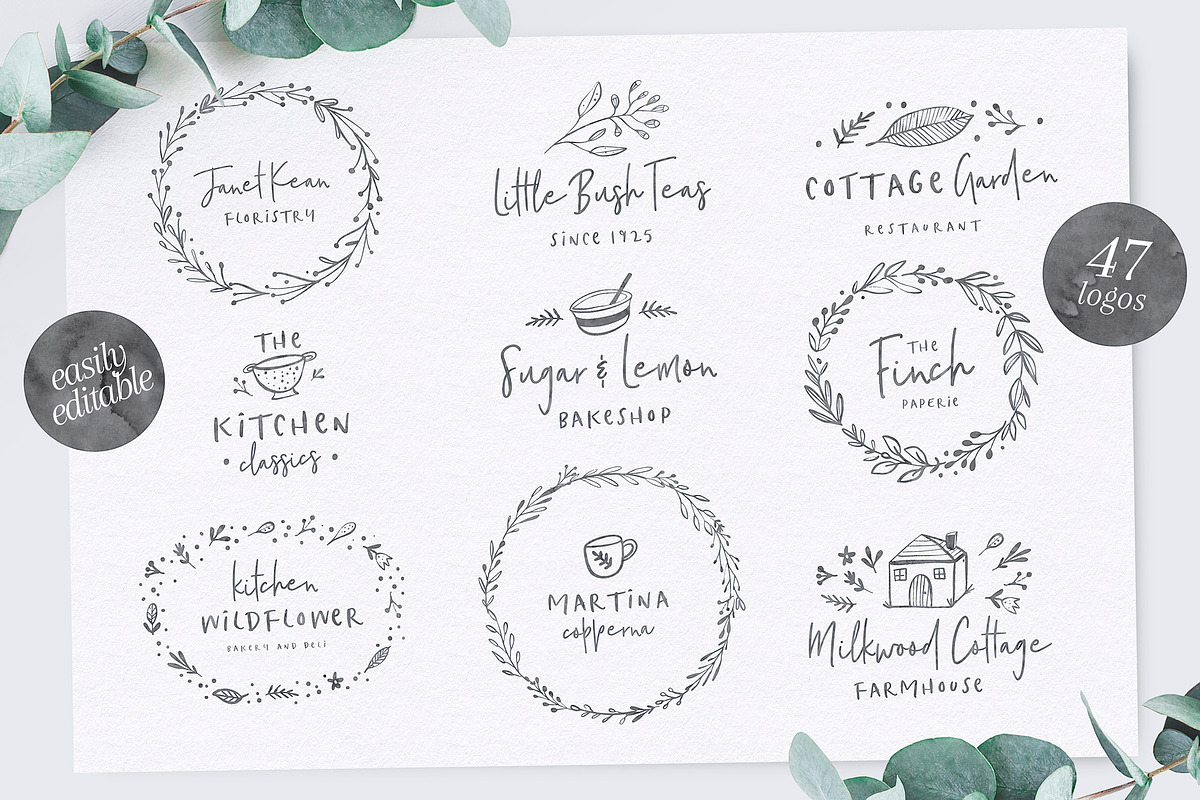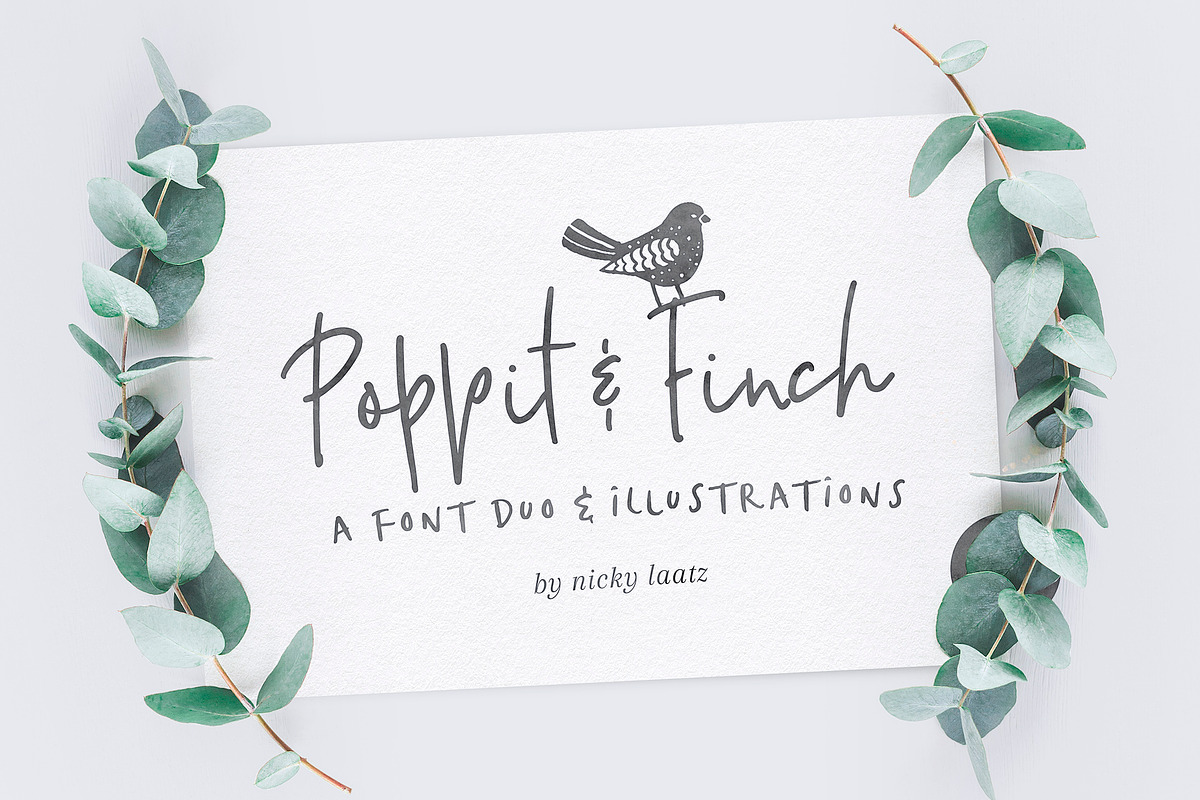
Poppit & Finch Fonts & Illustrations
Having just moved to the beautiful Cornish countryside, surrounded by green rolling hills, adorable hopping bunnies and fluffy baa-ing sheep, I couldn't help but feel inspired to create something that reflects how gorgeous it all is :)
Say hello to Poppit & Finch - A sweet little font duo with oodles of country-inspired illustrated vectors and pre-designed logo templates, easy to use, and all inspired by this little piece of heaven I've found :)
The Poppit and Finch pack also includes 47 Easy-to-edit Premade Logo Templates - to get you inspired for your personal/commercial branding projects. Use them as they are, or mix and match with the huge selection of illustrations to make millions of logo combinations.